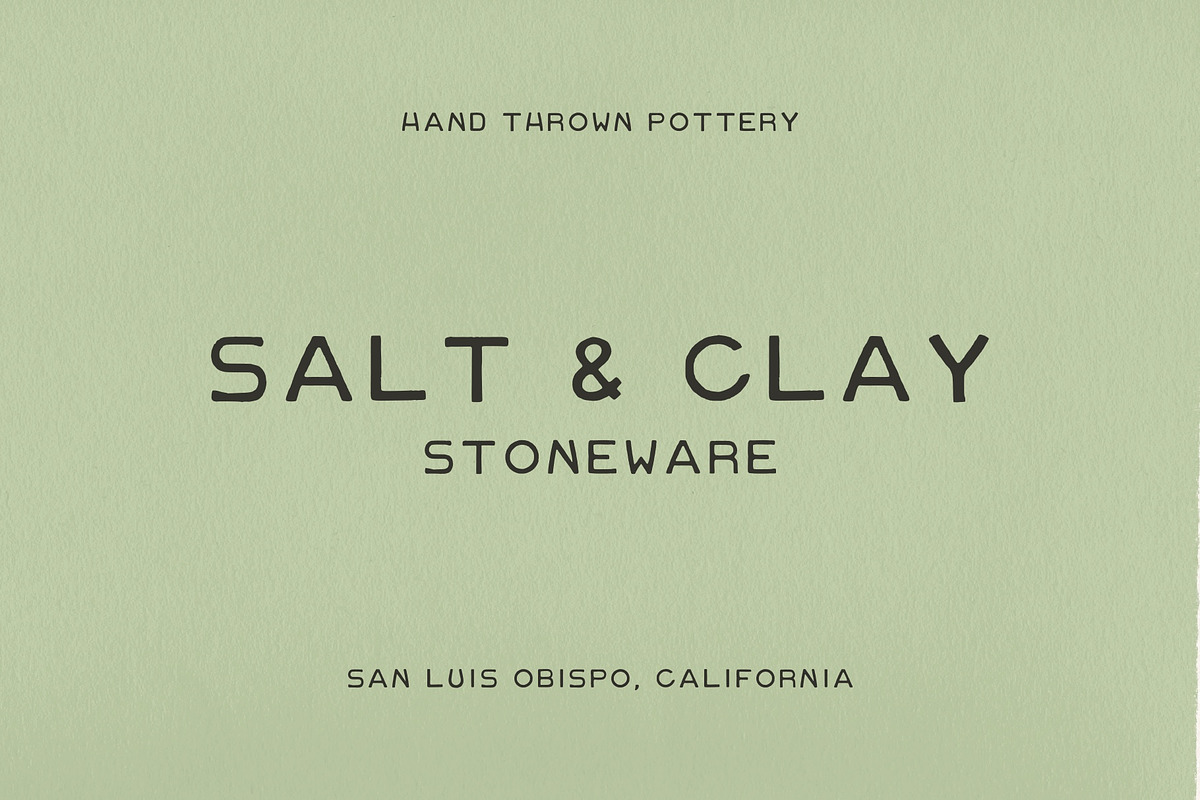
Yucca Valley | Hand Drawn Sans Serif
Inspired by hand painted signs in the desert, this is Yucca Valley—a fully functional typeface with punctuation, glyphs, and numbers. Yucca is rustic, earthy, minimal, and born from the desert.
This is an all-caps typeface perfect for branding, logos, stationary, and more.
- Uppercase characters
- Two variations: REGULAR and OUTLINE
- Standard Latin characters, numerical, punctuation, mathematical symbols, all accent marks all lettered by hand